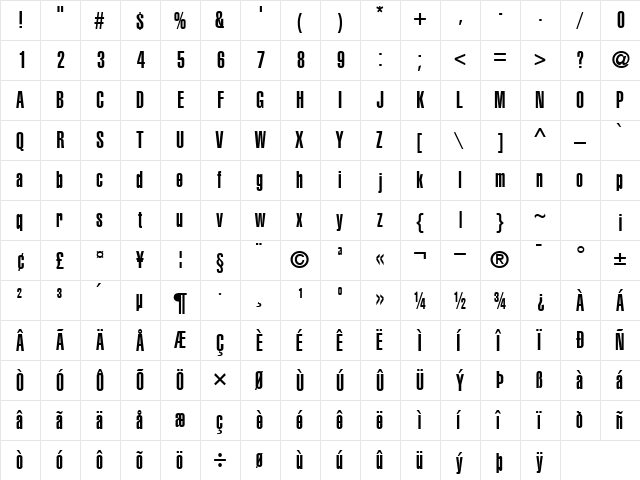
ContextUltraCondSSK Regular
Design Context for ContextUltraCondSSK Typeface
ContextUltraCondSSK is a composed and adaptable typeface that performs quietly and consistently across a wide range of design contexts. The condensed width makes it efficient for tight spaces without sacrificing legibility.